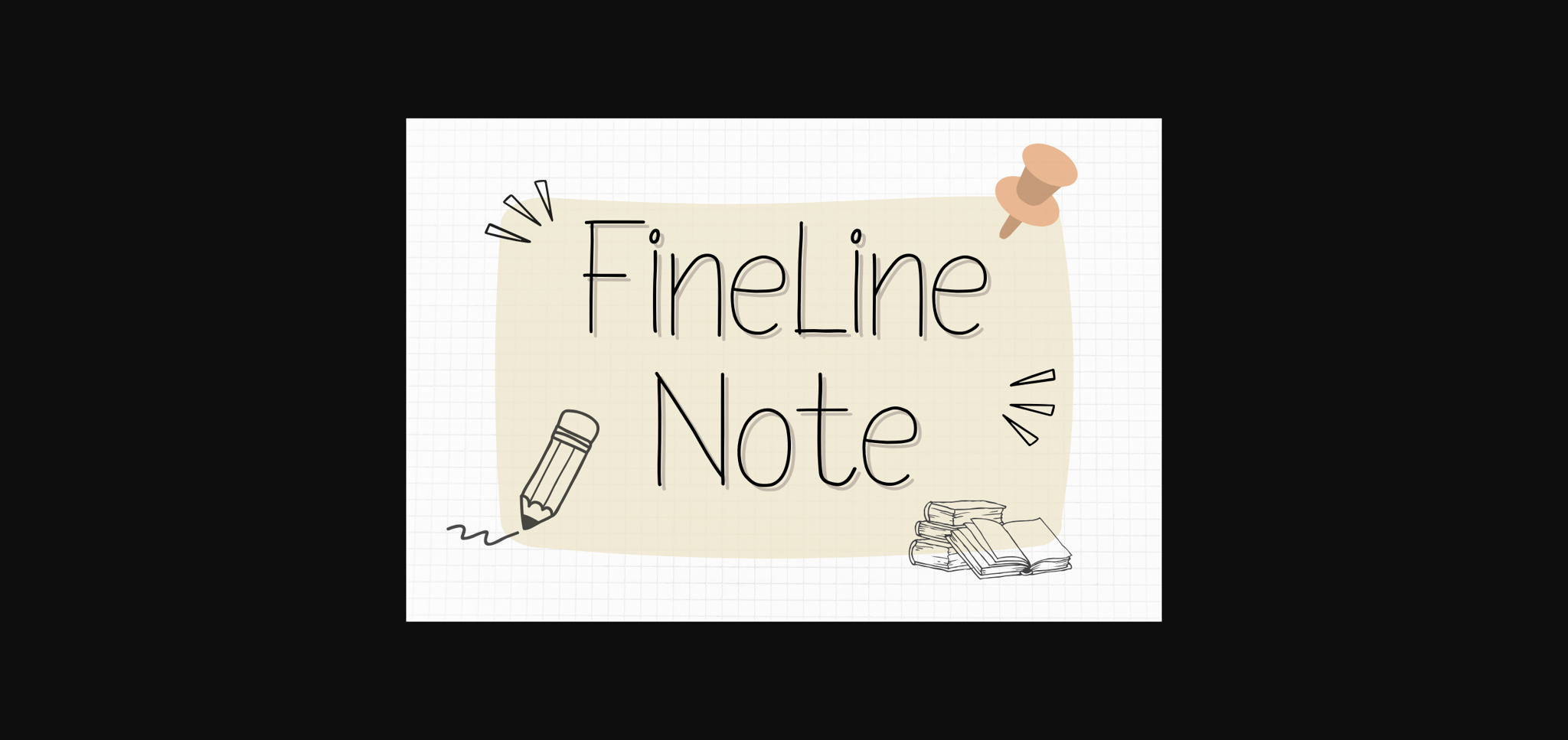
About Fineline Note Font
FineLine Note is a cute simple sans serif typeface. It works best for clean and simple looking for planner, magazine covers, packaging design, perfume design, and cosmetics.